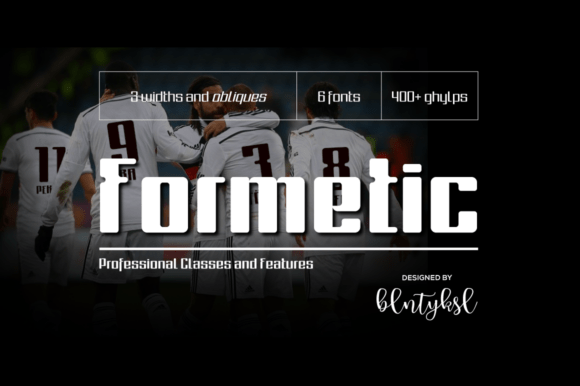
Unlocking the Future of Typography: Introducing the Formetic Font
Enter the Formetic Font, a bold and futuristic display font that’s perfect for adding a unique touch to your web designs, business cards, and more. This versatile font is a game-changer for designers looking to elevate their work and stand out from the crowd.
Key Features of Formetic Font
- Font Family: Formetic Font is a sans-serif font family designed for digital use. It comes in multiple weights, from Light to Bold, and includes italics for each weight.
- Character Set: Formetic Font includes a comprehensive character set, covering Latin, Cyrillic, and Greek alphabets, as well as punctuation and symbols.
- Unique Characteristics: Formetic Font features a unique blend of modern and geometric elements, resulting in a clean and sophisticated design that is both readable and visually appealing.
Designer Review: Formetic Font
Overall, I found the Formetic Font to be a great addition to my design toolkit, but it’s not without its quirks. ✨ One of the things that I really like about this font is its versatility – it’s perfect for both body text and headlines, and it works well in a variety of contexts, from digital design to print.
- ✨ Excellent legibility: The font is very easy to read, even at smaller sizes.
- ✨ High flexibility: It adapts well to different font sizes, line heights, and colors.
- ✨ Modern aesthetic: The font has a sleek, modern feel that works well for contemporary designs.
However, there are some limitations to consider. ⚠️ The font can sometimes feel a bit too generic, and it may not stand out as much in crowded design environments. Additionally, the font family is relatively small, which may limit its use in certain contexts.
Overall, I would recommend the Formetic Font to designers who are looking for a reliable, versatile font that works well in a variety of situations. While it may not be the most exciting font out there, it gets the job done, and it’s a solid choice for many design projects.
Getting the Most Out of Formetic Font
To get the most out of Formetic Font, use it for:
- Creatives and artistic projects
- Editorial and publishing projects
Formetic Font is ideal for:
- Book titles and headings
- Magazine and newspaper headings
Alternatives to Formetic Font